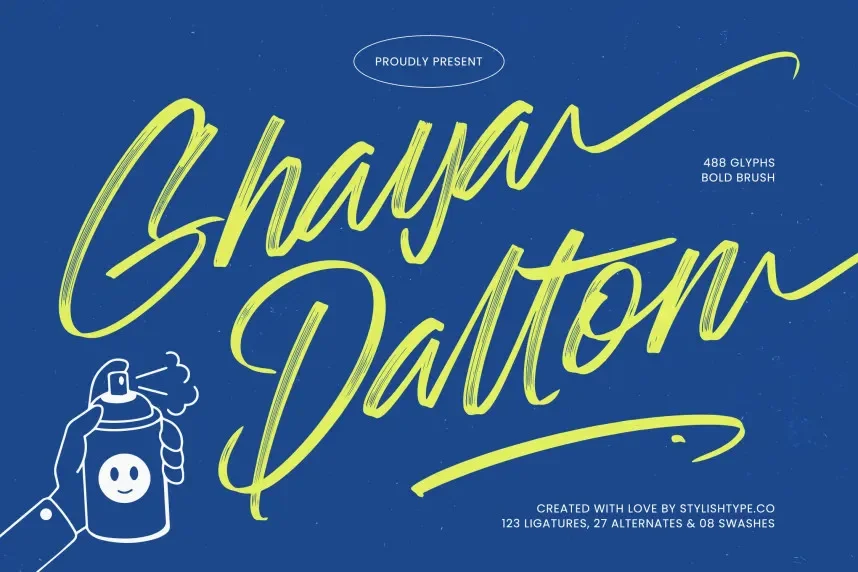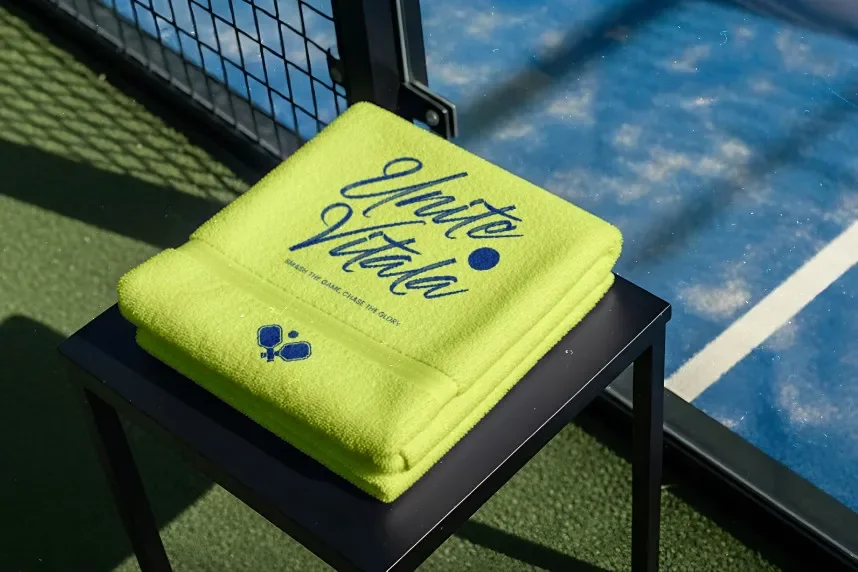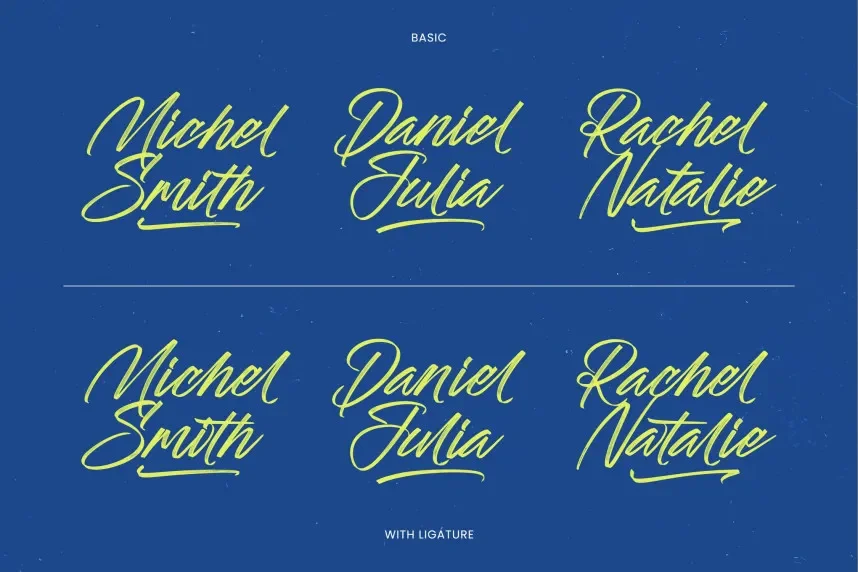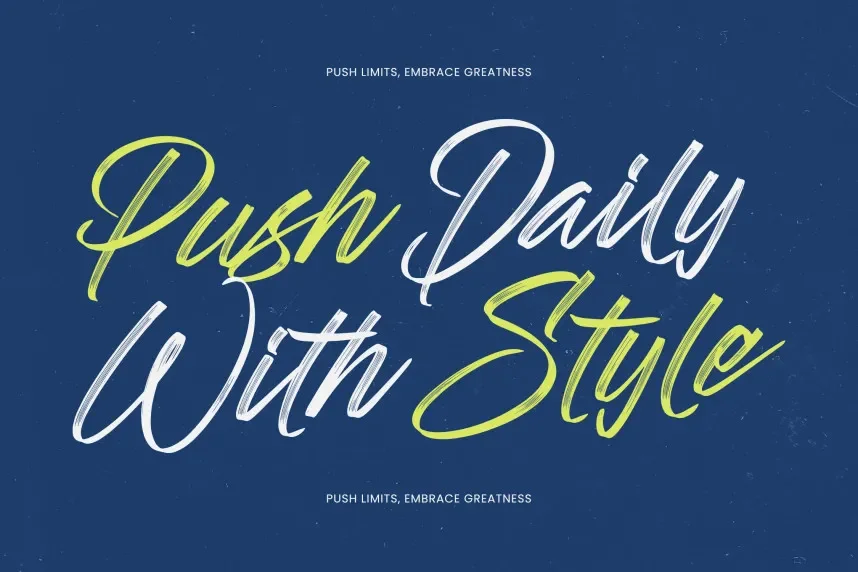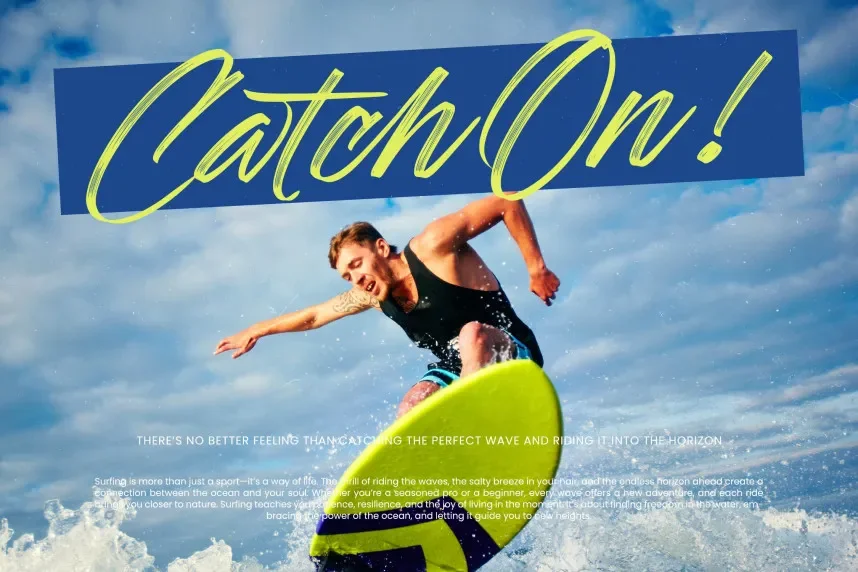
Ghaya Dalton Font is a sleek, geometric sans-serif typeface designed for clarity and modern aesthetics. Its clean lines and consistent proportions make it highly readable, making it ideal for digital interfaces, branding, and product design.
Perfect for logos, website headings, and digital marketing, Ghaya Dalton Font pairs well with serif fonts for body text. Available in TTF and OTF formats, it includes a commercial-use license. Be sure to check the license for commercial use.